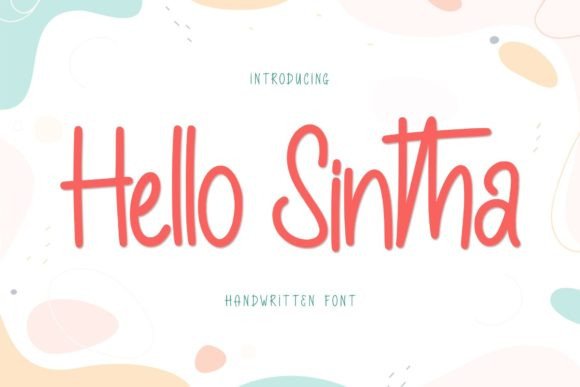
Unleash the charm of Hello Sintha, a captivating handwritten font ready to inject a spark of fun and friendliness into your creative arsenal. Step into a whimsical world of letters, where each character dances with a playful spirit, evoking the joy and wonder of childhood.
Hello Sintha, with its sweeping strokes and bouncy curves, is more than just a font; it's an expression of pure delight. Its essence lies in the art of storytelling, inviting your words to leap off the page and transport readers to magical realms. Whether you're crafting cartoon-inspired designs, conjuring children's games, or etching captivating quotes, Hello Sintha is your perfect companion.
Envision your brand name, elegantly penned in Hello Sintha, exuding a warmth and approachability that draws customers in like moths to a flickering flame. Picture book covers adorned with its whimsical charm, inviting young readers to embark on extraordinary adventures. Unleash your creativity with posters that pop with Hello Sintha's vivacious energy, grabbing attention and sparking conversations.
Hello Sintha isn't just a font; it's an experience. It's a journey into the realm of imagination, where words transform into enchanting tales and designs bloom with unbridled creativity. Let Hello Sintha be your muse, inspiring you to create masterpieces that resonate with audiences of all ages.